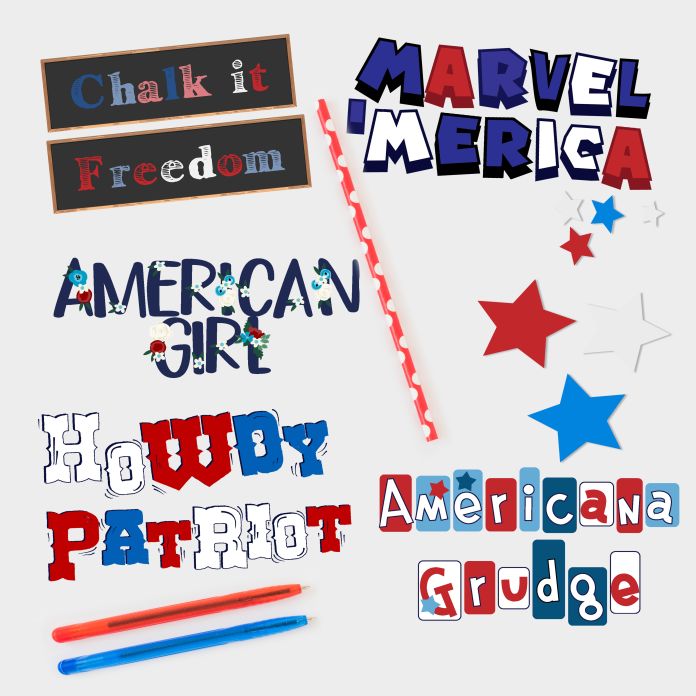
Red, White, and Blue Color Font Bundle
This full-color font bundle features five font full-color alphabets, each with an emphasis on the the 'ol red, white, and blue! There is an alt case with an additional color of each letter. These fonts works best for titles, displays, posters and more. Please note color fonts will show as black in non compatible programs. These font types are compatible with Silhouette Studio.